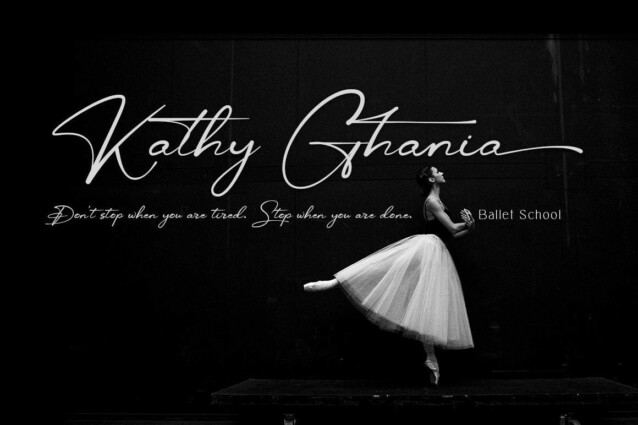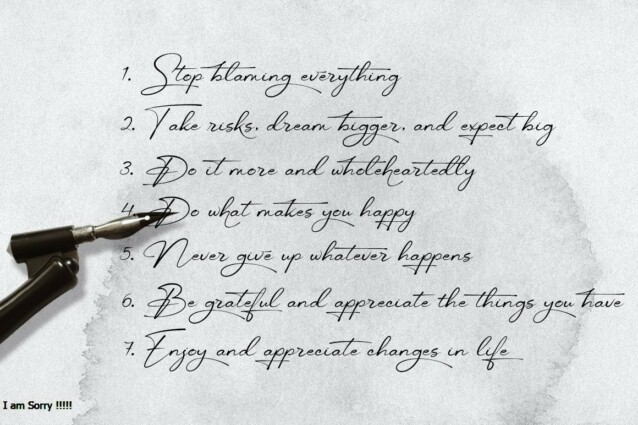
Hi Barbie Font
Hi Barbie Font is a handwritten font created by Area Type. Perfectly fit for branding, logo, wedding things, greeting cards, fashion, lookbook, marketing promotion, anytime you want to look fancy elegant but still casual.
Areatype